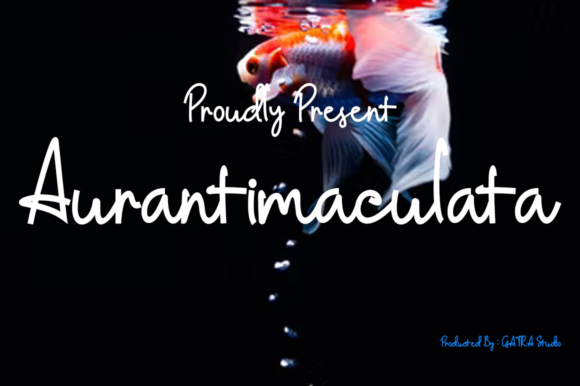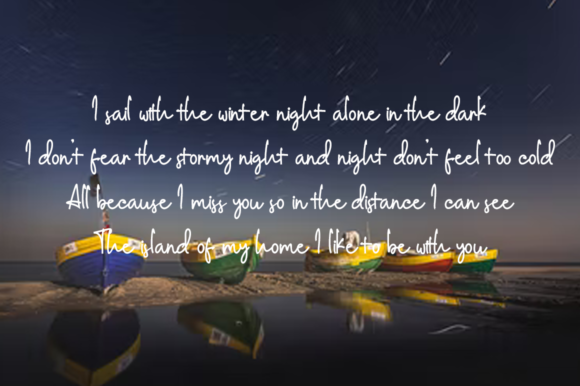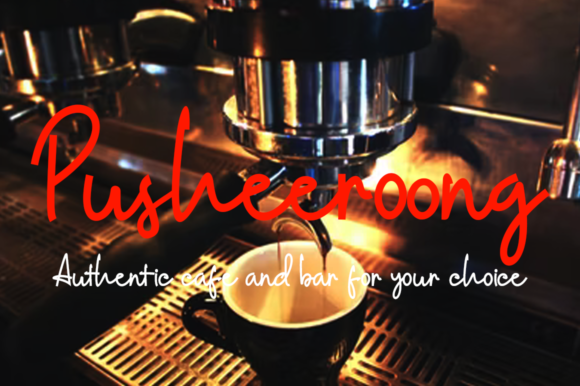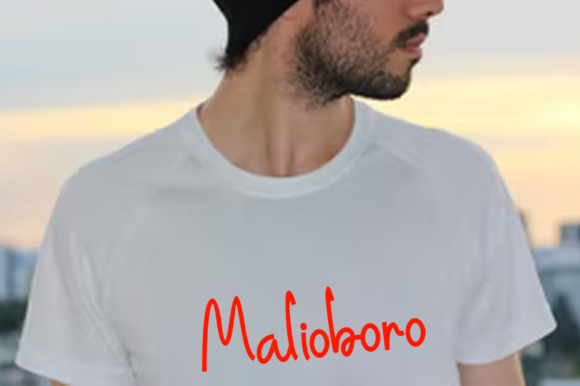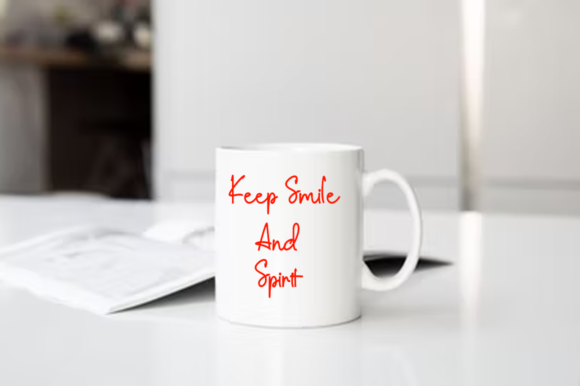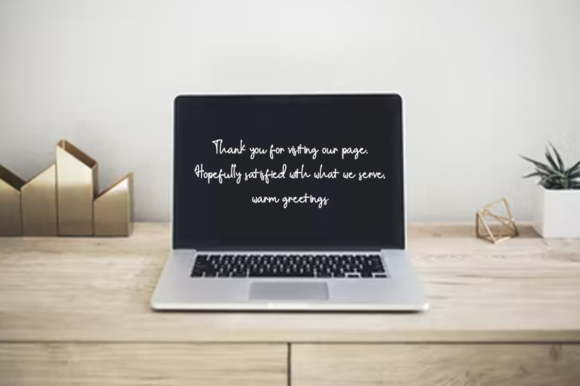
Aurantimaculata Font
About Aurantimaculata Font
Aurantimaculata is a clean and simple handwritten font. It is PUA encoded which means you can access all of the glyphs and swashes with ease! Aurantimaculata’s natural and unique style makes it incredibly fitting to a large pool of designs.